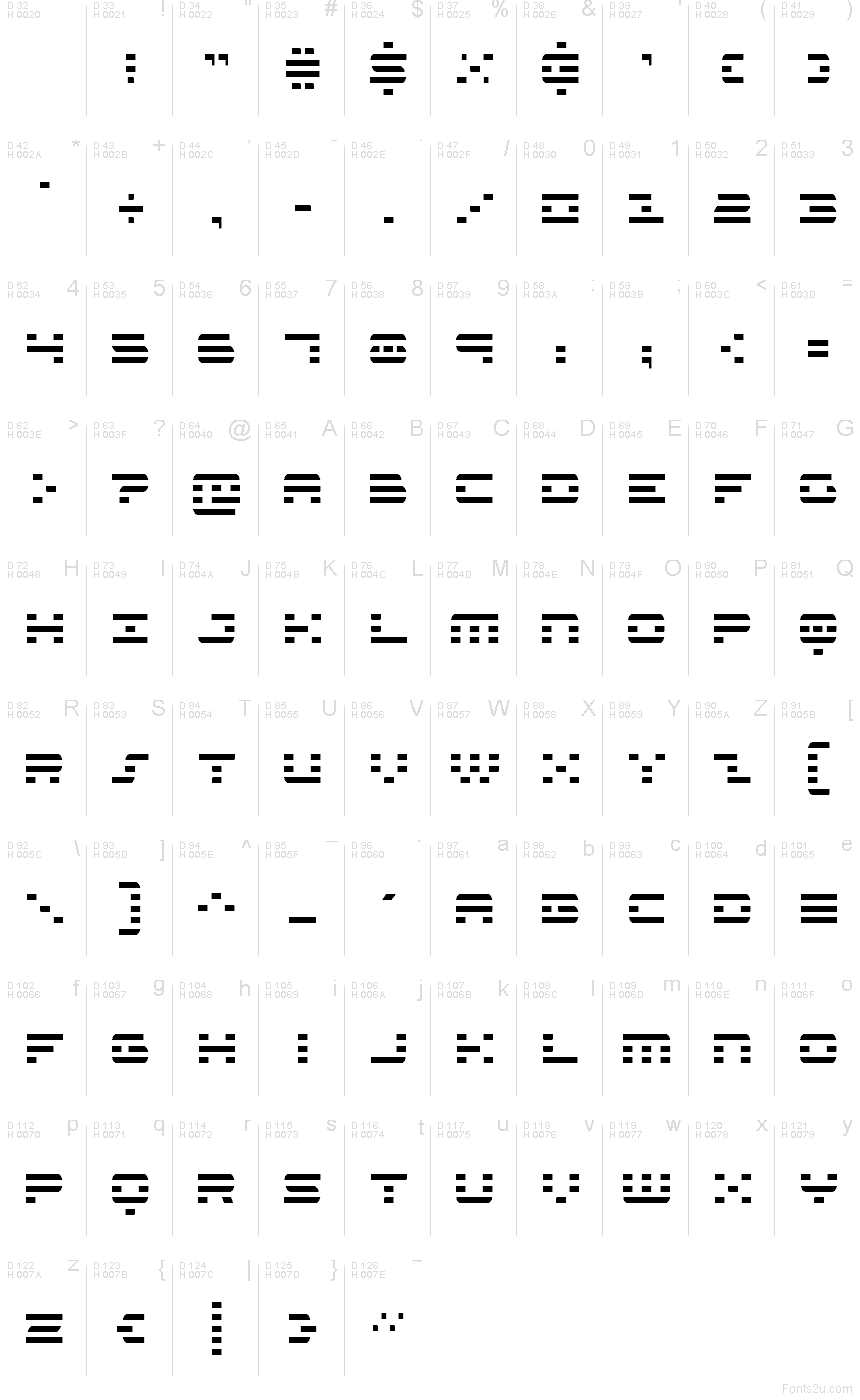
Nova Terra Narrow
Nova Terra Narrow font by Iconian Fonts is a free futuristic display typeface in the Nova Terra family. Its tightly compressed forms, squared curves, and blocky, segmented strokes feel like they were pulled straight from a spacecraft HUD, letting you squeeze bold, sci-fi titles into cramped horizontal spaces without losing impact. The rhythm of the shapes is rigid and mechanical, giving your typography a clean, engineered edge that still reads fast at a glance.
Using Nova Terra Narrow, you can push tech-heavy branding, game titles, sci-fi posters, UI overlays, esports graphics, and motion lower thirds into a sharp, cinematic zone. This free font thrives in all-caps settings where you need dense, bar-like letters that lock together like machinery. For supporting text, pair it with a simple geometric sans at smaller sizes so Nova Terra Narrow can stay loud and commanding in your headlines.